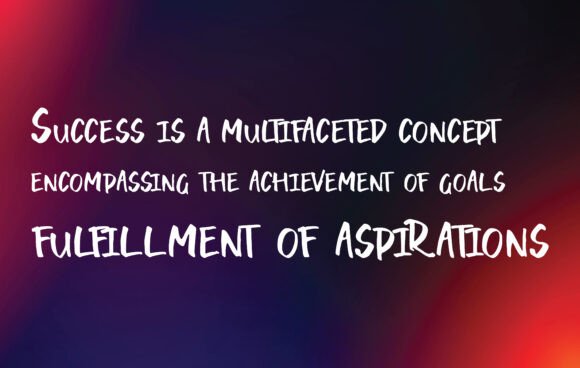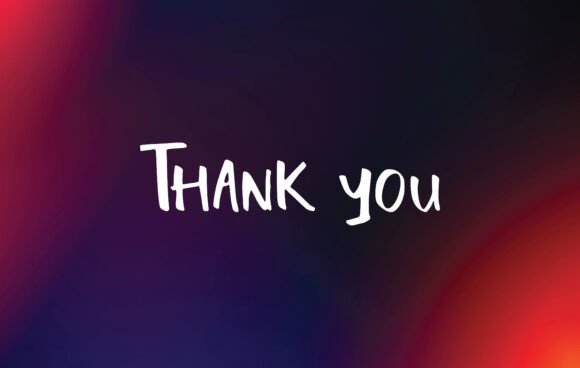
Introducing Charlik Font: The Ultimate Design Companion
Are you a designer, crafty enthusiast, or simply someone who loves to create? Look no further! Charlik Font is here to revolutionize your design game. This font is made to be a go-to favorite—versatile, eye-catching, and ready to bring your creative ideas to life.
What Makes Charlik Font Special?
Charlik Font is designed with clarity and readability in mind. Its clean lines and effortless flow make it a great choice for both titles and body text. Whether you’re working on a magazine cover, a t-shirt design, or a social media post, this font is sure to make your content stand out.
The versatility of Charlik Font knows no bounds. Here are just a few examples of the many design projects where this font shines:
• Magazine Covers: Create eye-catching headlines and captivating content with Charlik Font.
• T-Shirts: Design unique and stylish apparel that stands out from the crowd.
• Social Media Posts: Elevate your online presence with visually appealing graphics and typography.
• Branding: Establish a strong brand identity with Charlik Font’s distinctive style.
• Wedding Invitations: Add a touch of elegance and sophistication to your wedding stationery.
• Greeting Cards: Create heartfelt and personalized cards for any occasion.
Why Choose Charlik Font?
So, what sets Charlik Font apart from other fonts? Here are just a few reasons why designers and crafters love it:
• Readability: Charlik Font is easy to read, even at small sizes.
• Versatility: Use it for titles, body text, or any other design element.
• Style: Add a touch of personality to your designs with Charlik Font’s unique character.
Tips for Using Charlik Font
To get the most out of Charlik Font, here are a few tips to keep in mind:
• Experiment with Sizes: Play with different font sizes to create visual interest and hierarchy.
• Mix and Match: Combine Charlik Font with other fonts to create a unique and eye-catching design.
• Pay Attention to Spacing: Make sure to leave enough space between lines and elements to create a clean and readable design.
Charlik Font is the perfect addition to any designer’s toolkit. Its versatility, readability, and style make it a go-to favorite for a wide range of design projects. Whether you’re a seasoned pro or just starting out, Charlik Font is sure to bring your creative ideas to life. So why wait? Give Charlik Font a try today and see the difference for yourself!